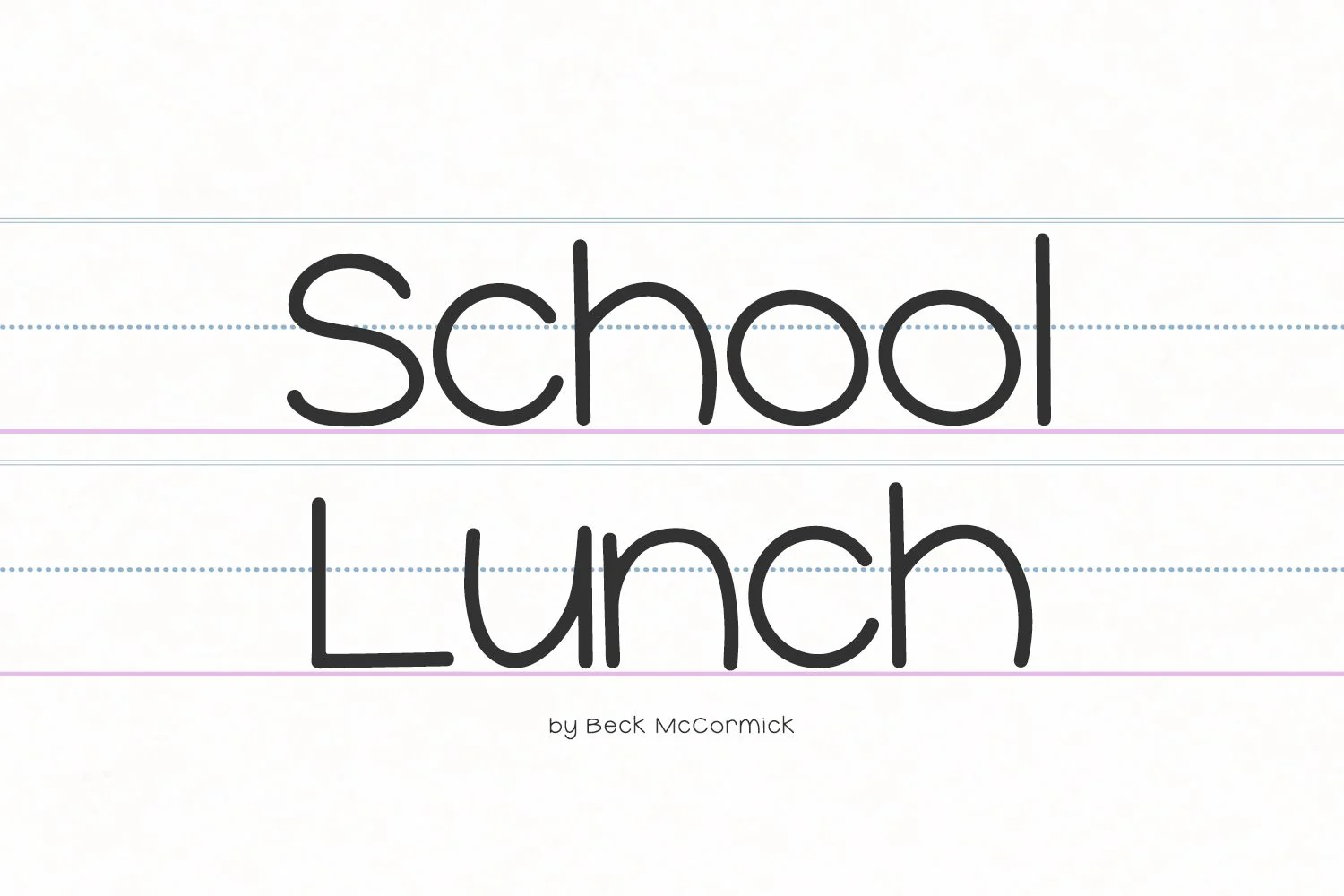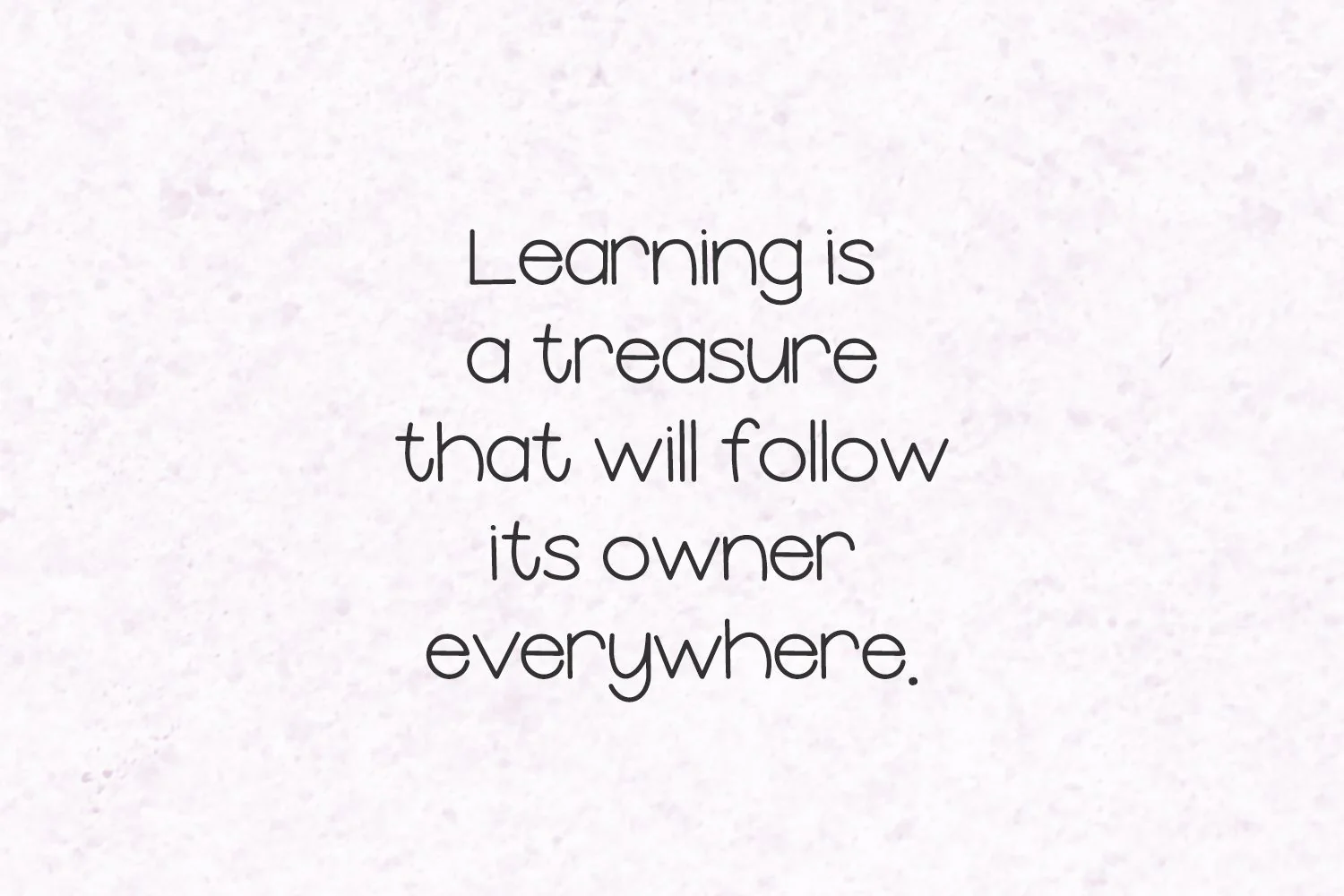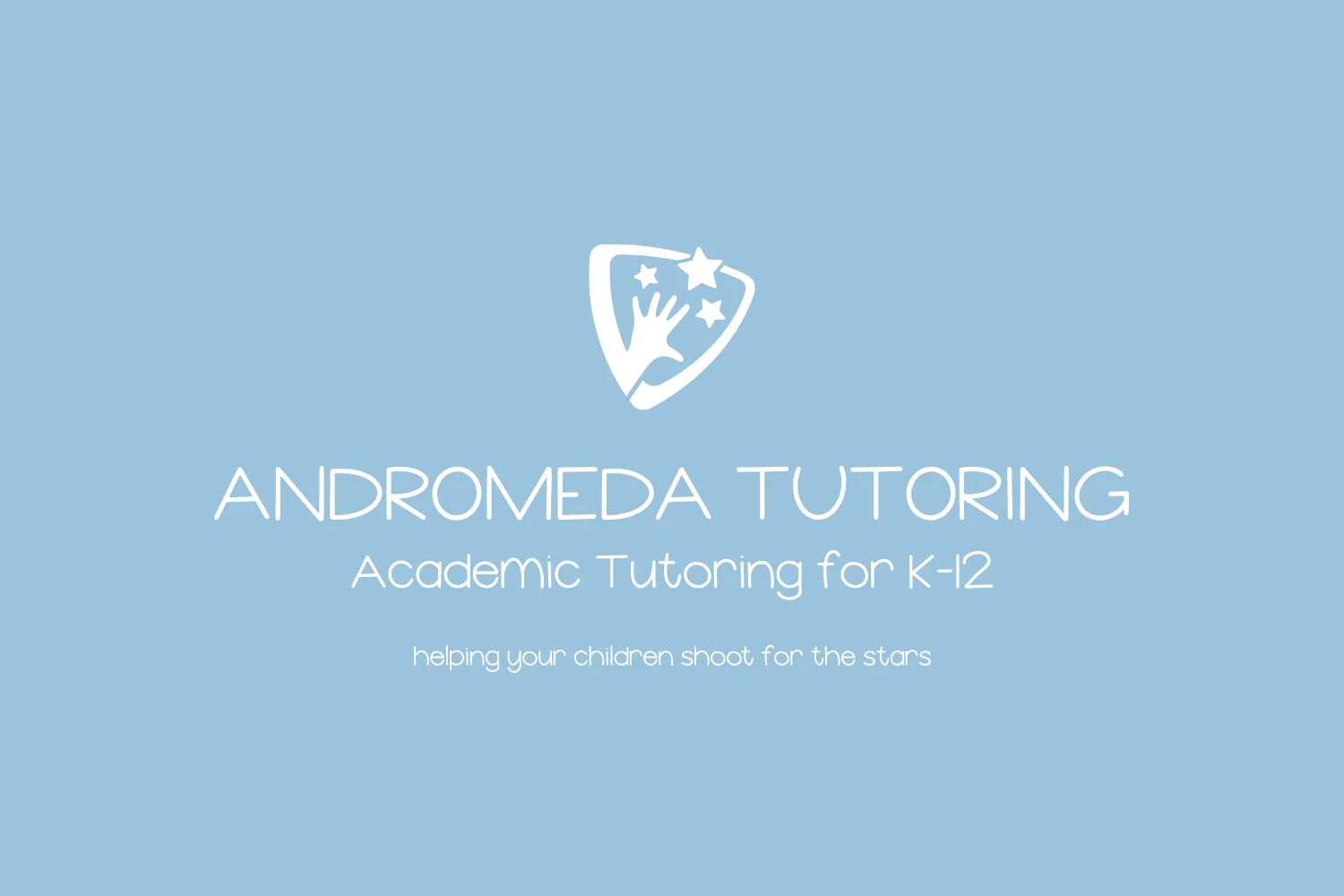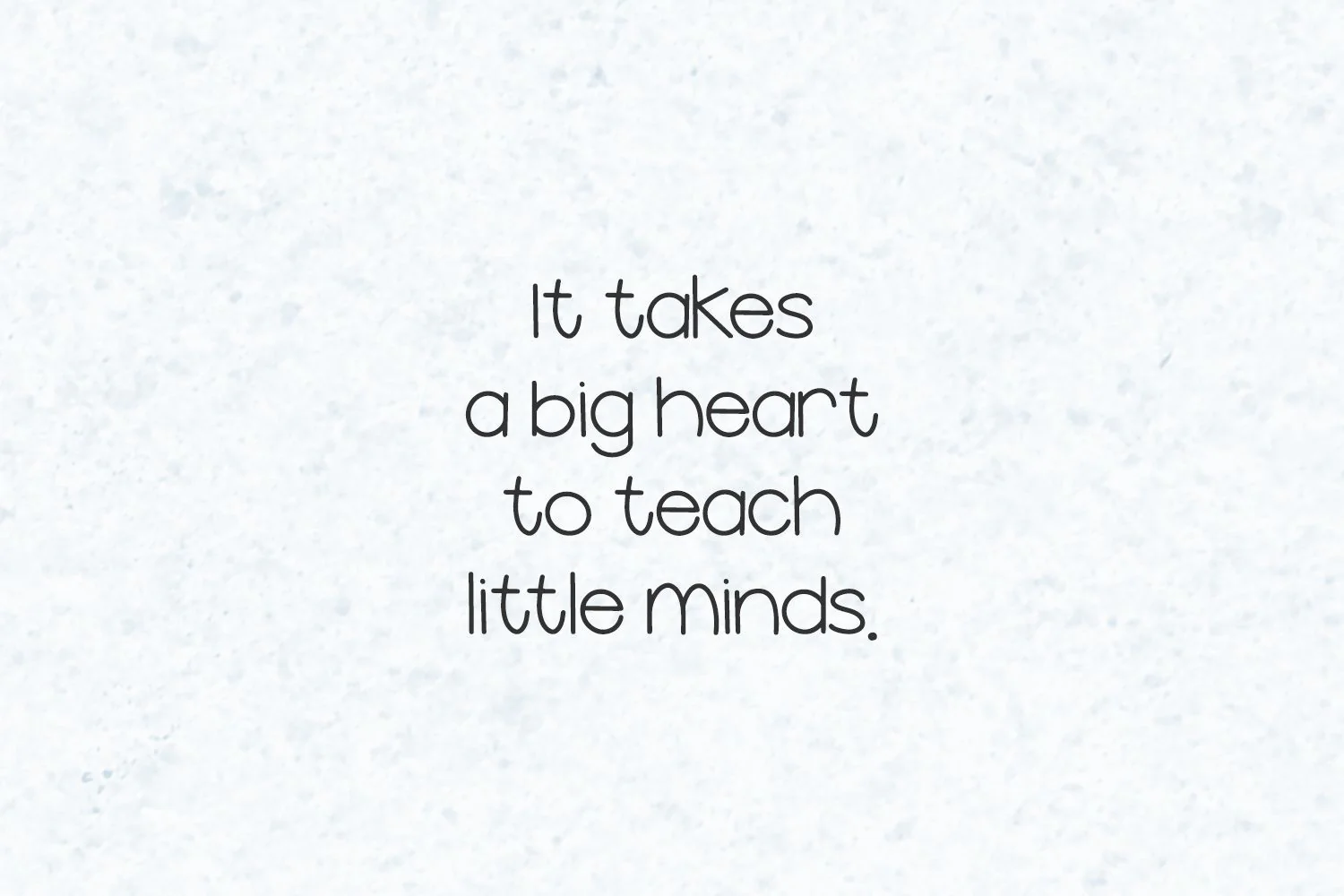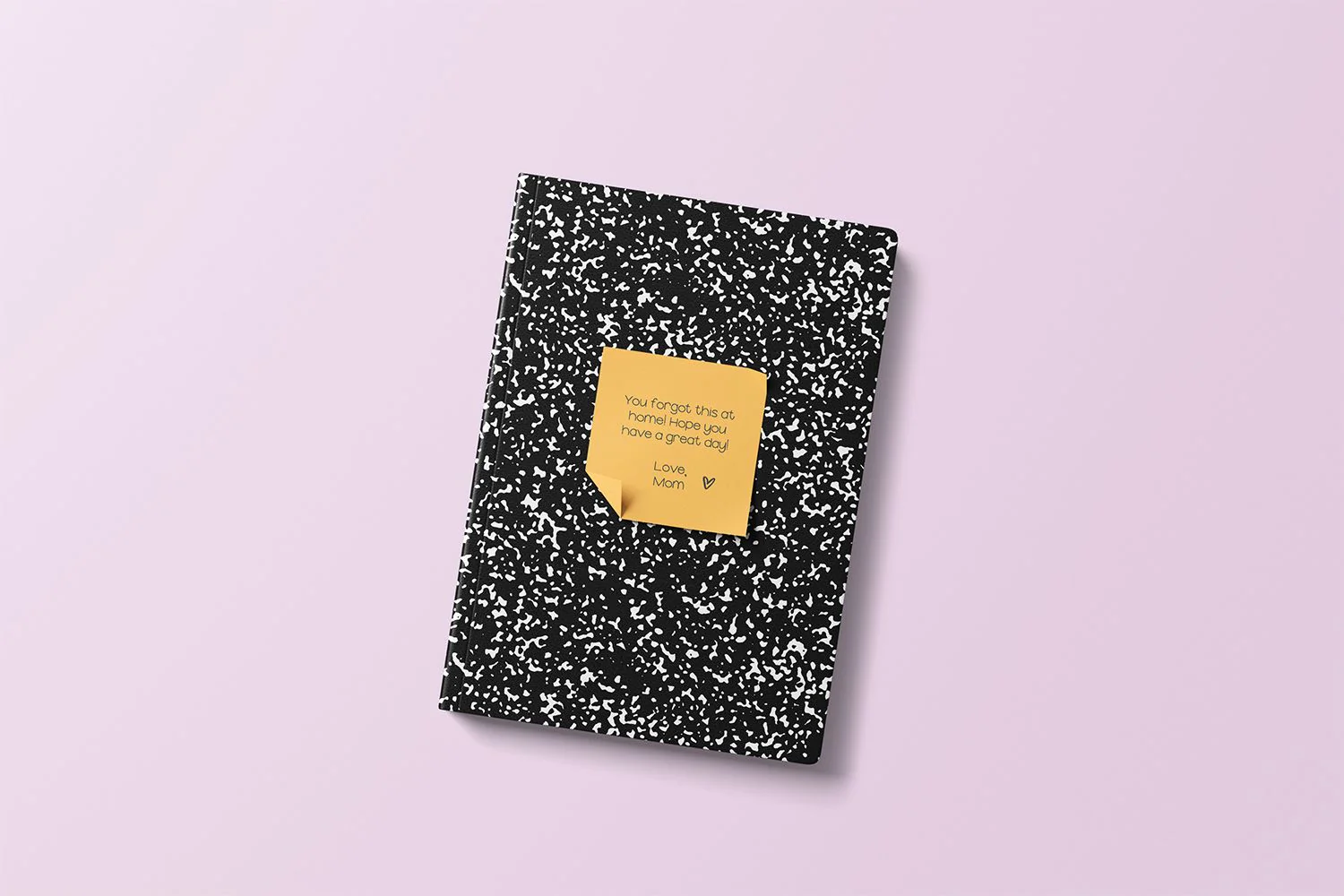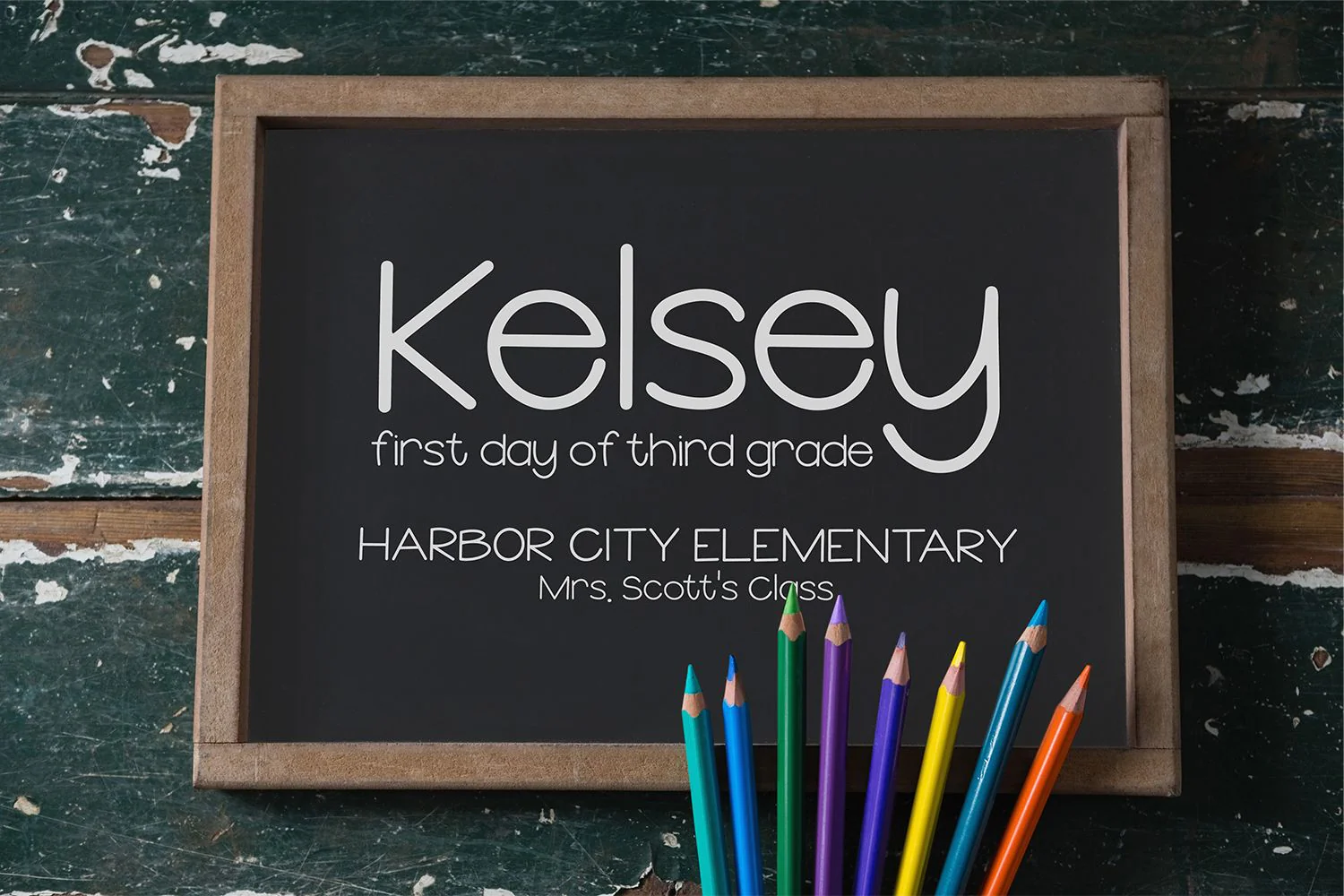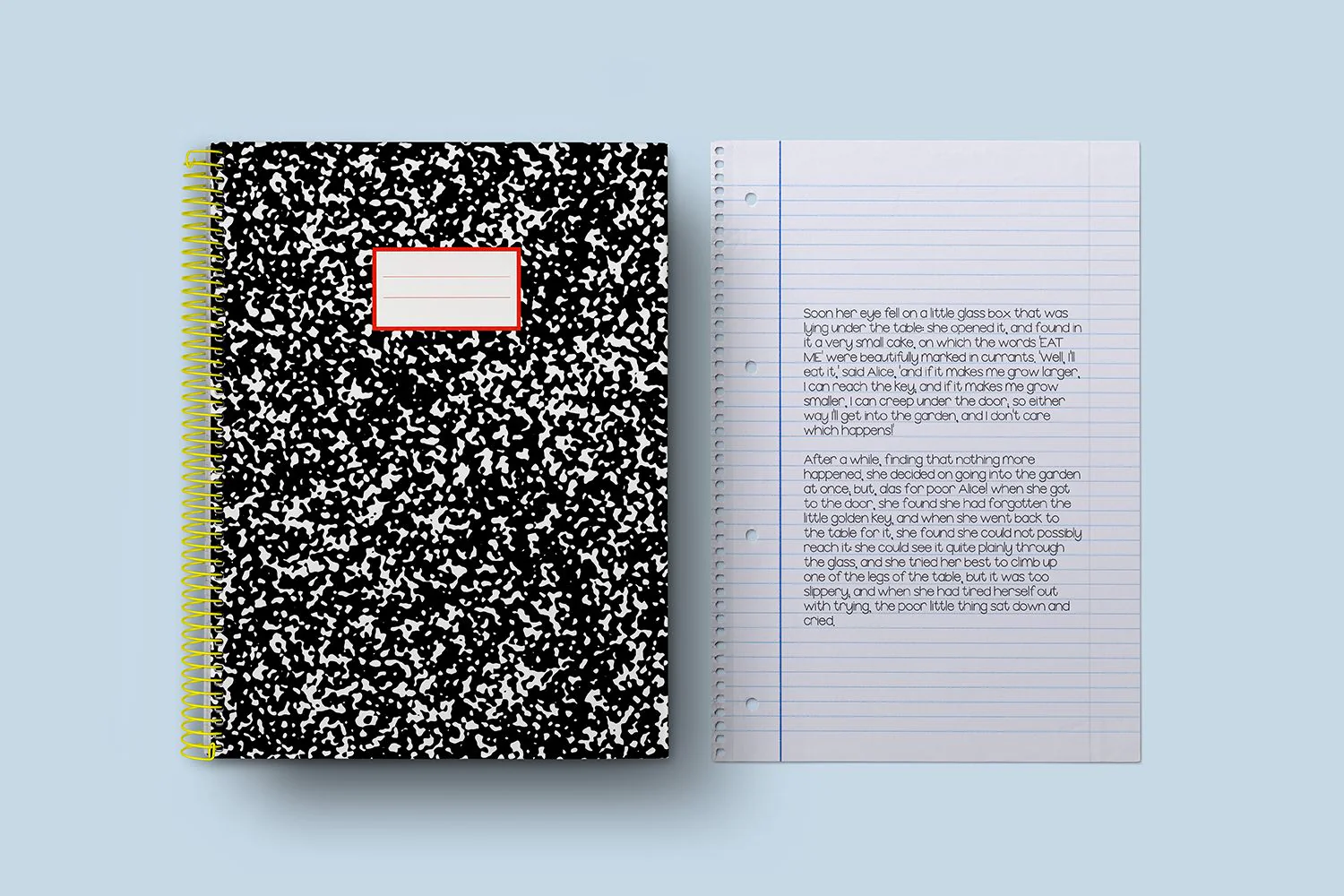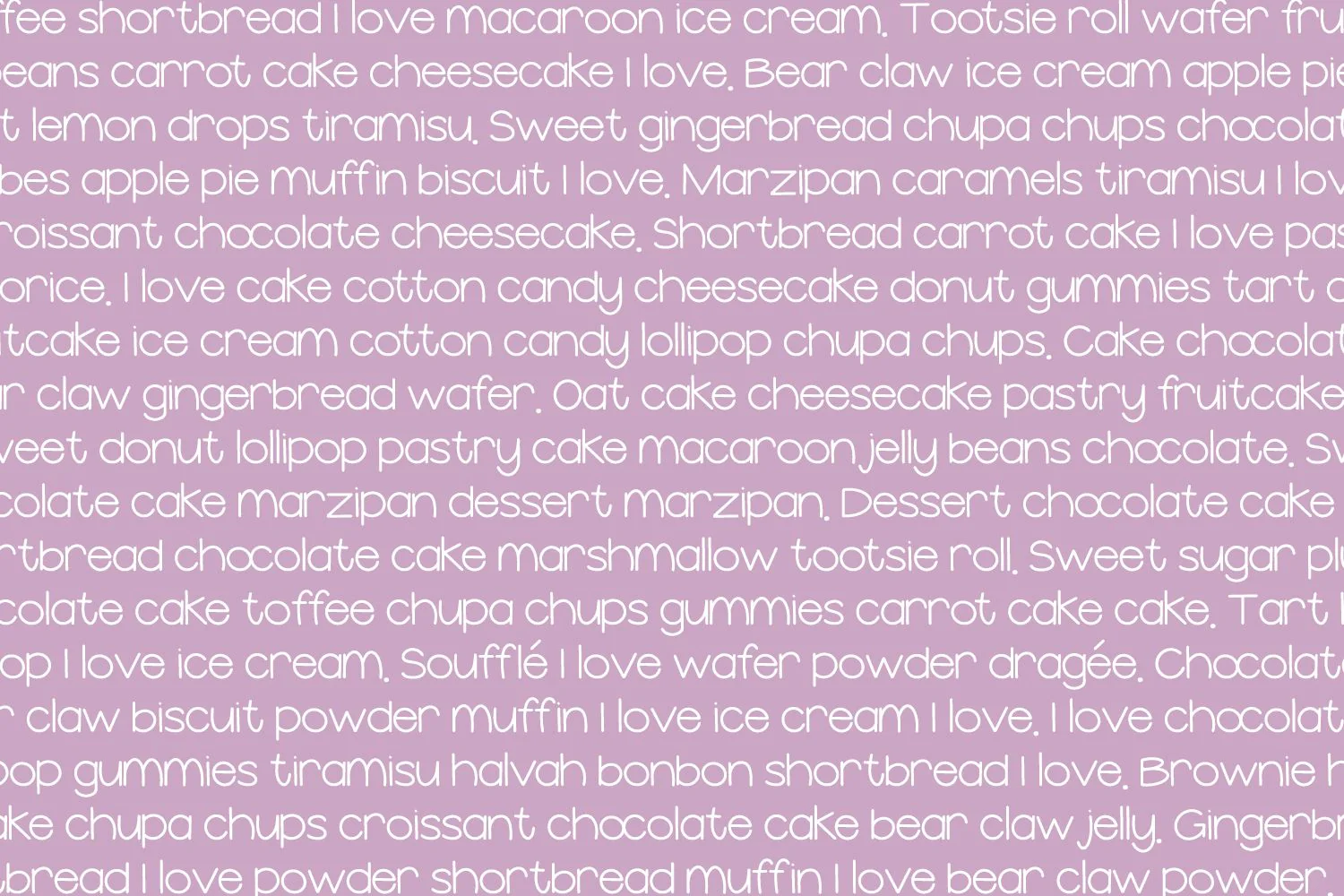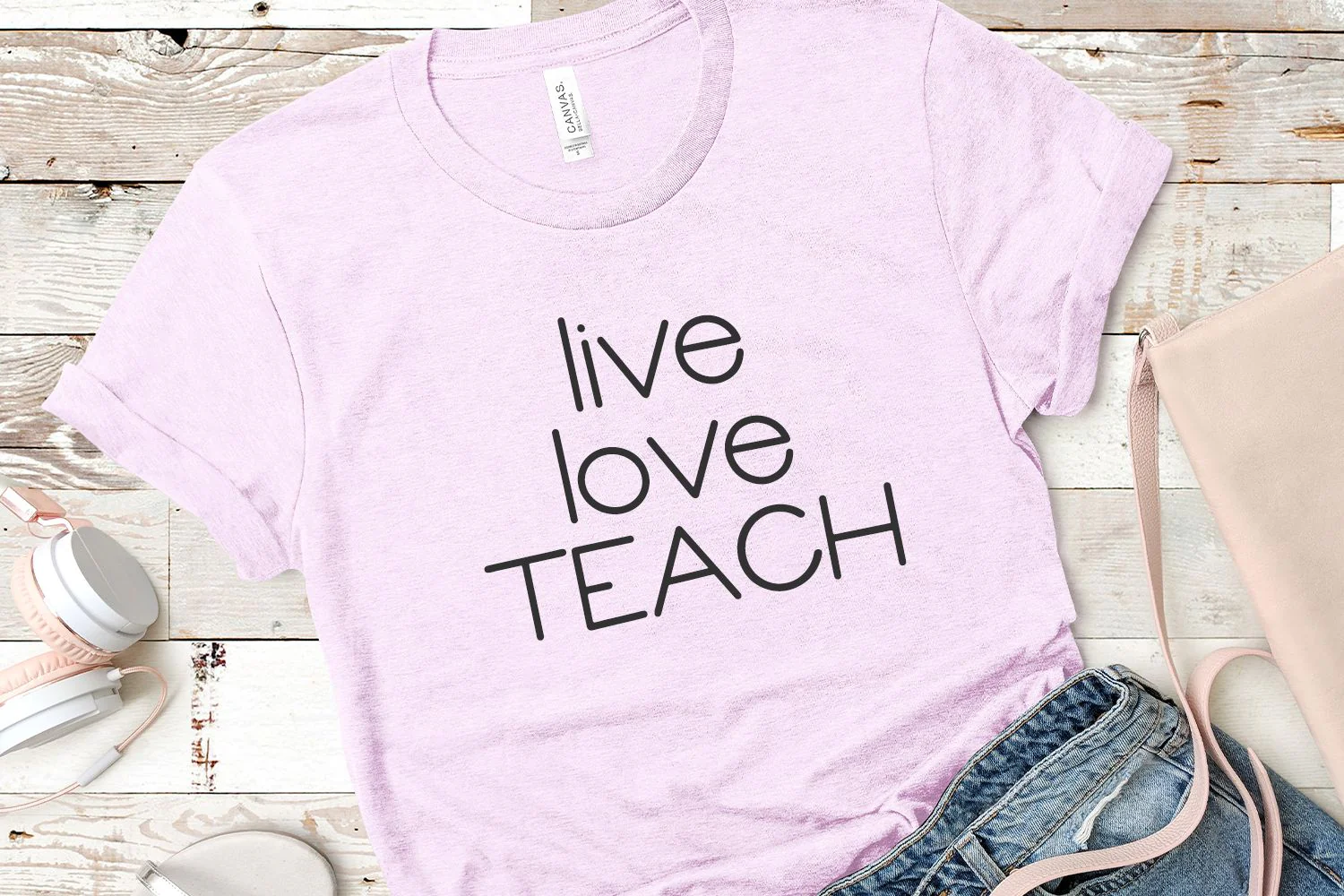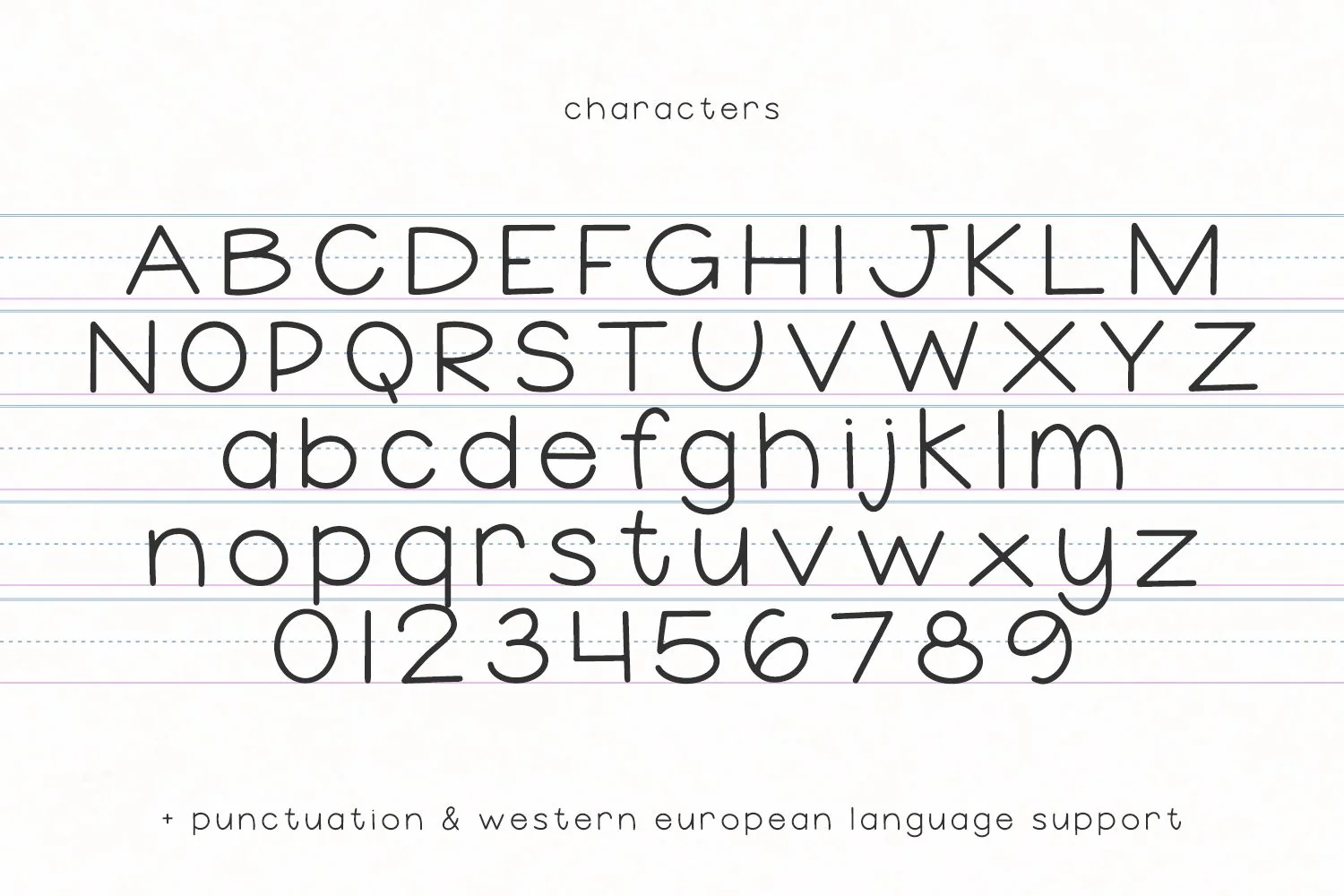
School Lunch Sans Font
Introducing School Lunch Sans, a neat handwritten font. School Lunch Sans is reminiscent of elementary school worksheets teaching handwriting, and can easily be used to make your own teaching resources.
School Lunch Sans is best for:
- feminine, crafty projects with your Cricut or Silhouette machine, or your SVG design business
- using as a reference to teach handwriting & penmanship skills
- logos + branding
- digital planners & apps like Goodnotes
- website design + website accents, blog design
- clean print design, like magazines + flyers
Introducing School Lunch Sans, a neat handwritten font. School Lunch Sans is reminiscent of elementary school worksheets teaching handwriting, and can easily be used to make your own teaching resources.
School Lunch Sans is best for:
- feminine, crafty projects with your Cricut or Silhouette machine, or your SVG design business
- using as a reference to teach handwriting & penmanship skills
- logos + branding
- digital planners & apps like Goodnotes
- website design + website accents, blog design
- clean print design, like magazines + flyers